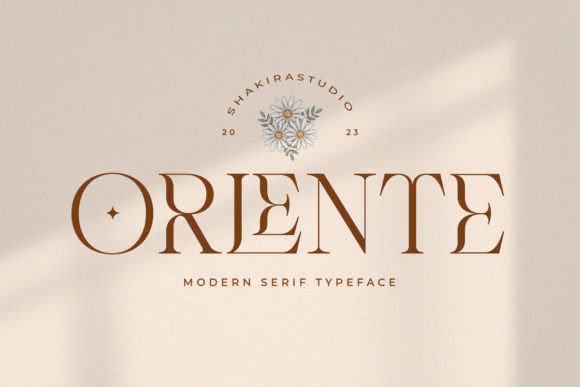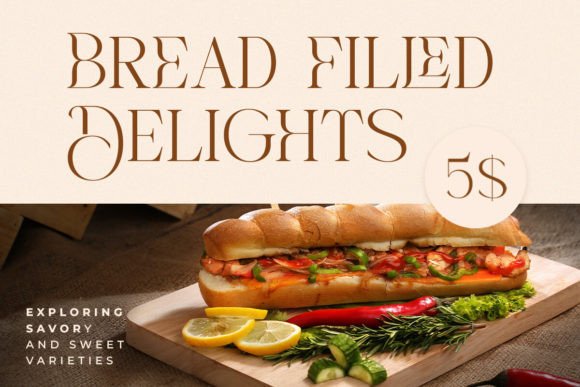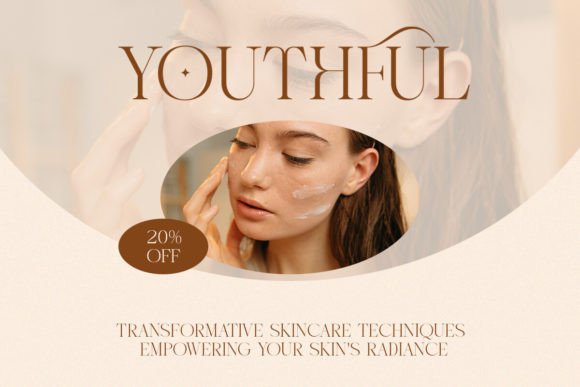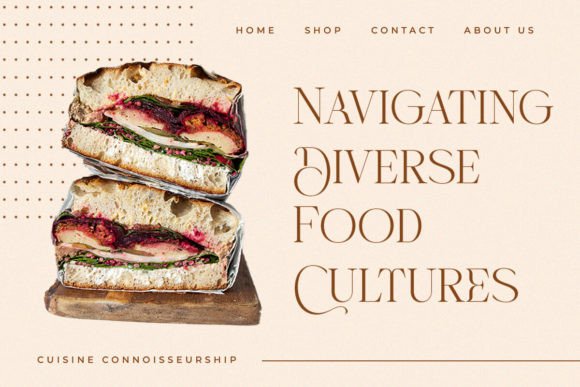
Orlente Font
About the Orlente Font
Presenting Orlente Font, a unique and stylish typeface that will make your work stand out. Introducing Orlente a font that redefines modern elegance within the realm of serif fonts. Immerse your designs in a world of sophistication with this contemporary typeface. Orlente stands out as a beacon of luxury, featuring a rich variety of alternates and ligatures that infuse your projects with a sense of opulence and stylish finesse.
Each curve and contour of Orlente is meticulously crafted to capture the essence of modernity while maintaining an air of luxury. Elevate your typographic expression with the diverse and stylish features of Orlente, setting a new standard for modern Serif Fonts in the current design landscape. This font is not just a static typeface; it’s a dynamic expression of your design narrative. Nomadic Dreams is perfect for editorial design, branding, invitations, or any project where the seamless integration of modernity and classic elegance is paramount.